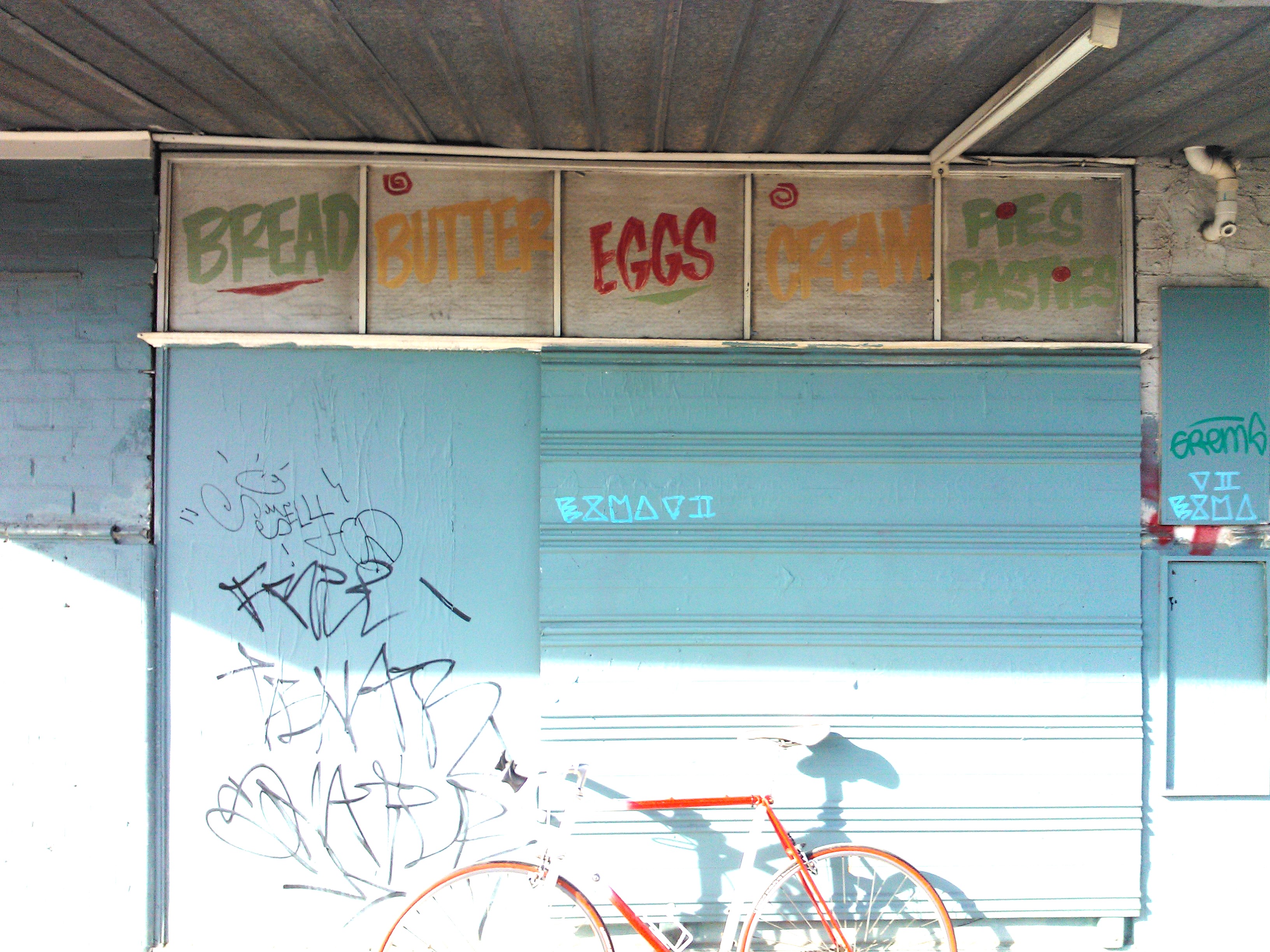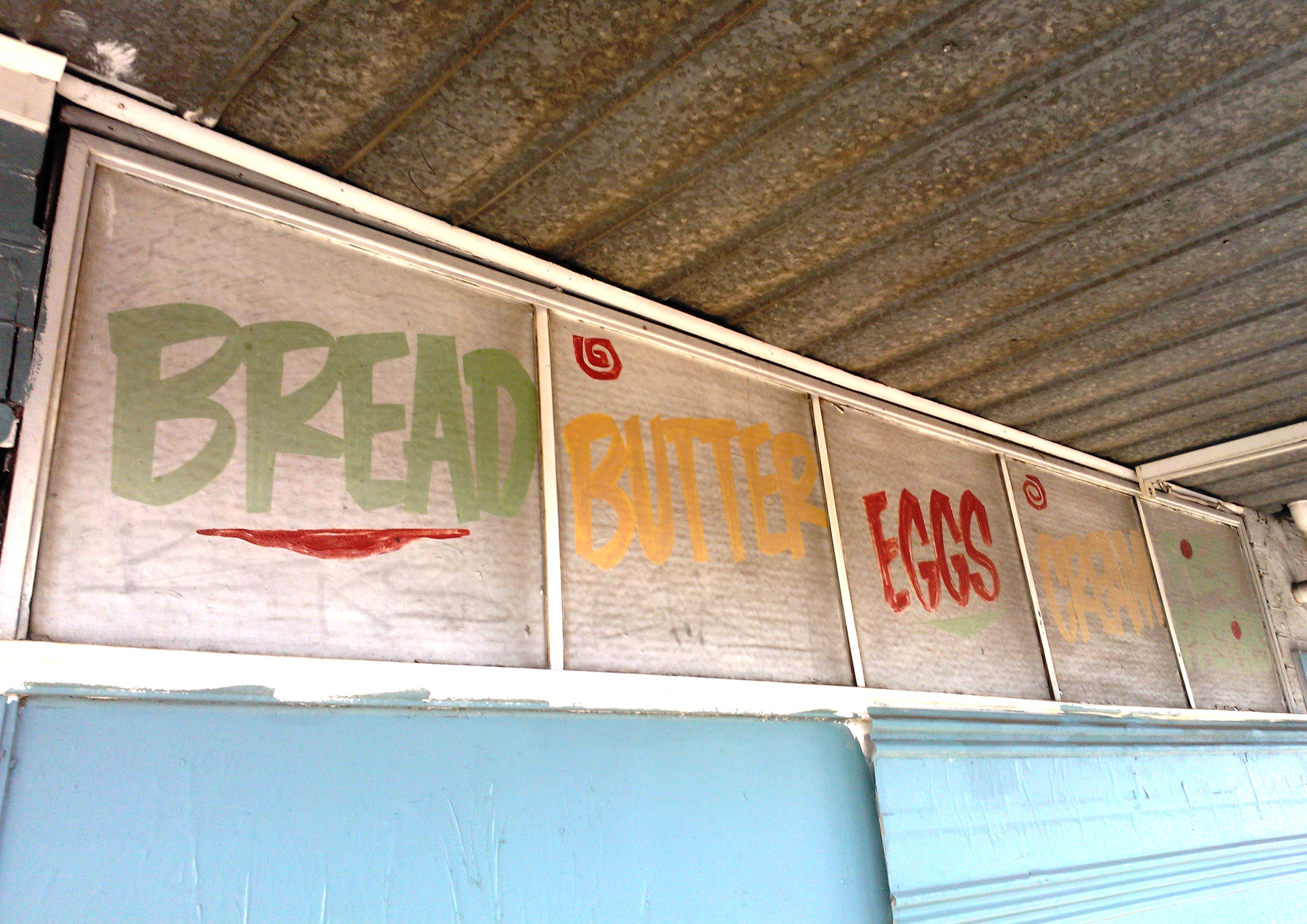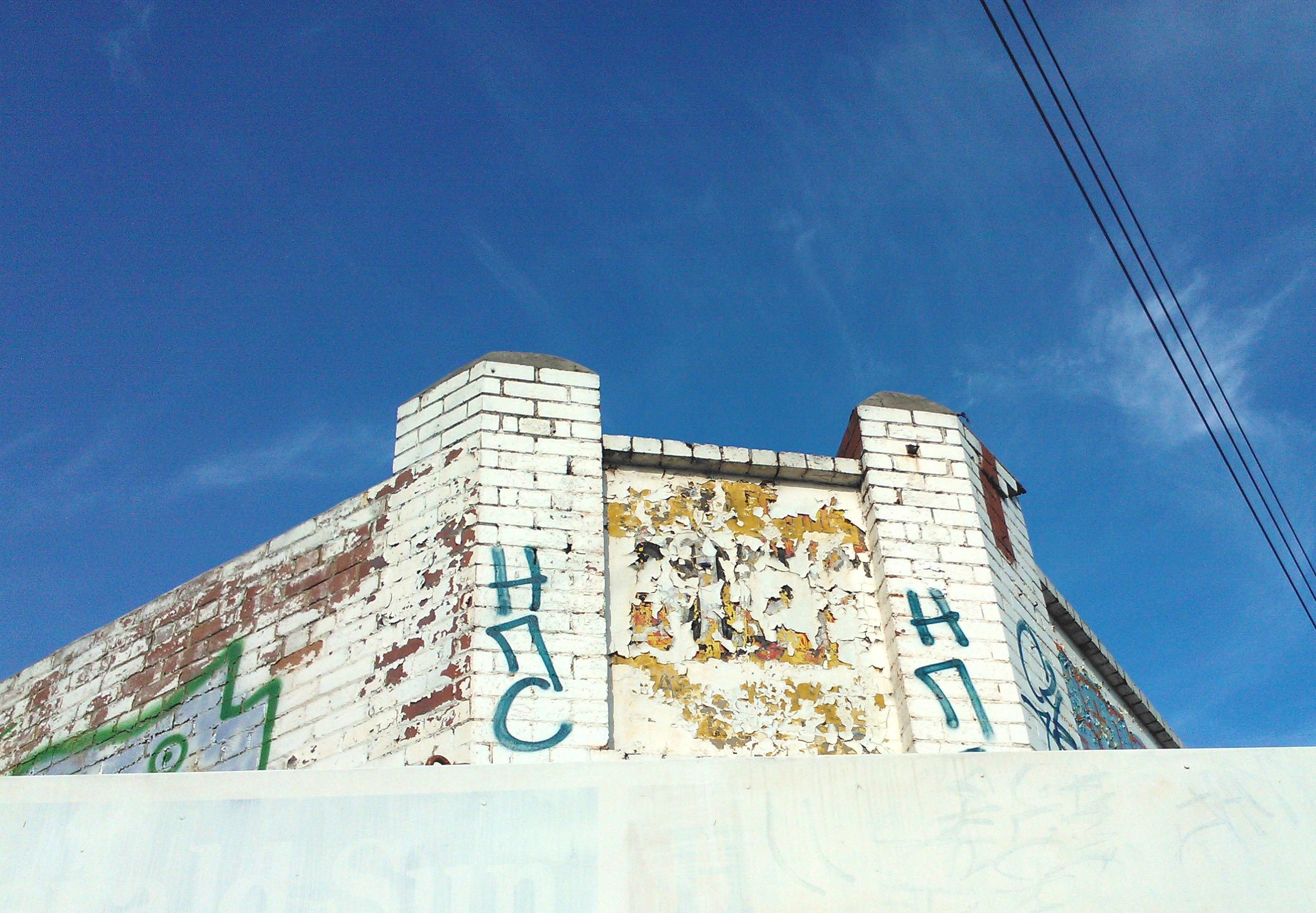
Bread, Butter, Eggs, Cream
Albion St, Brunswick.
Low key and local. No branding, just the facts, man.
How about a glamour shot with my trusty steed?
And as I was heading off I turned to see this guy trying to break free from his lead-based bondage.
I wonder what it was?? …. Maybe a little late night, guerilla paint scraping is in order?